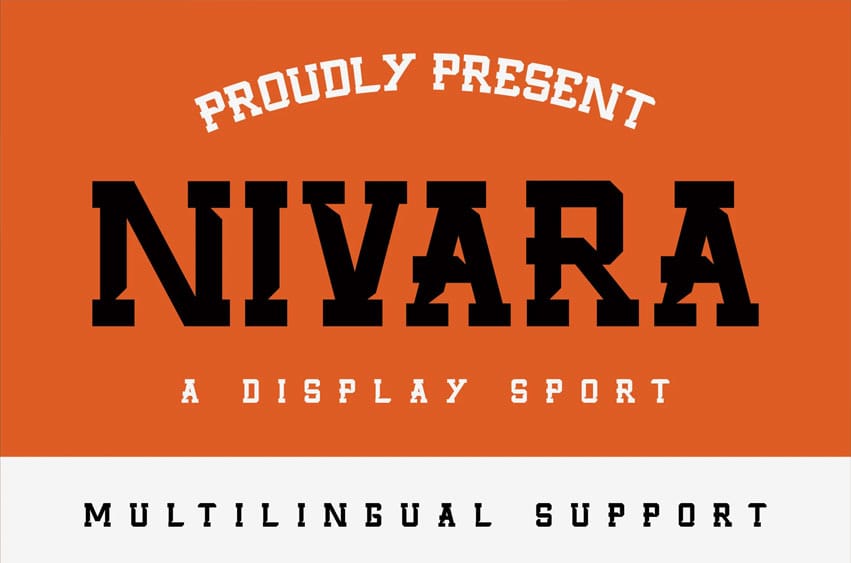
Nivara Font is a beautifully flowing script font that captures the essence of elegance and artistry. With its smooth curves and graceful lines, this font embodies a sense of refinement and timeless sophistication.
Perfect for luxury branding, creative invitations, and personal projects, Nivara adds a personal touch to any design.